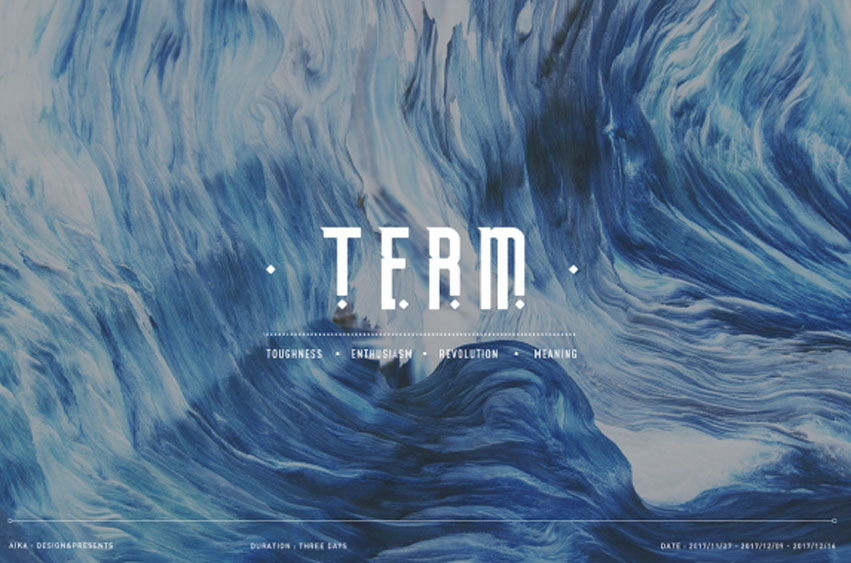
Term Free Font
Term Free Font is a fascinating and futuristic free display font, one hallmarked by negative space and geometry.
Aika is a Chinese designer with a proclivity for cool and sleek design, and this typeface is a wonderfully sleek font to have.